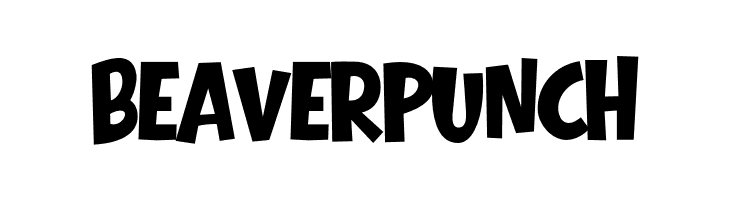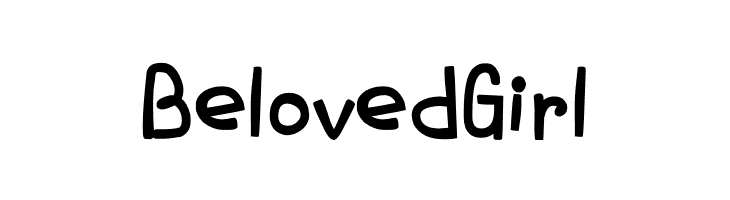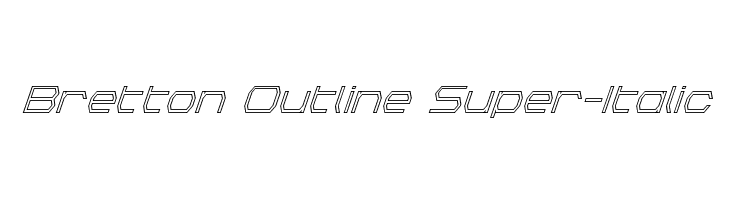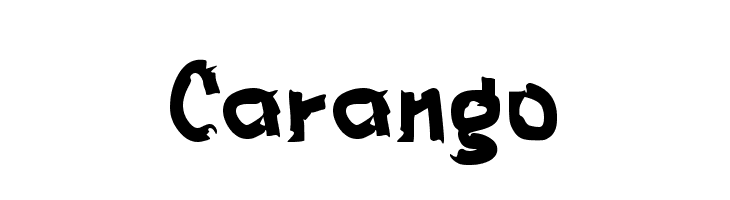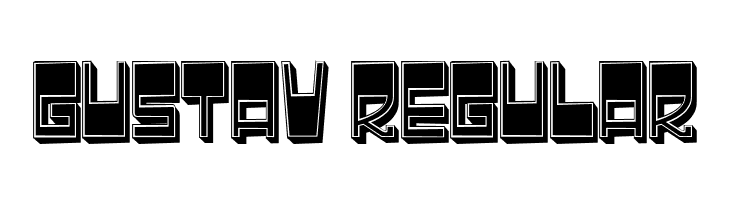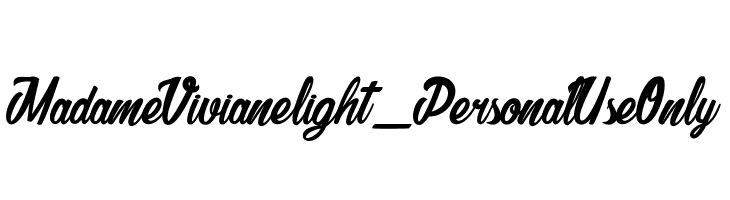
A bold, hand-drawn font with an energetic and playful style.
A playful, spooky display font with Halloween-themed characters.
A bold, rounded sans-serif font with smooth curves and uniform strokes.
A playful, energetic script font with smooth, flowing lines and a casual, handwritten feel.
A bold, handwritten font with energetic and playful strokes.
A flowing, cursive font with elegant, interconnected strokes.
Modern sans-serif with light, soft italic style.
A bold, jagged font with dynamic, aggressive styling.
A bold, geometric font with a 3D effect, perfect for striking headlines.
A bold, outlined font with a modern and geometric style.